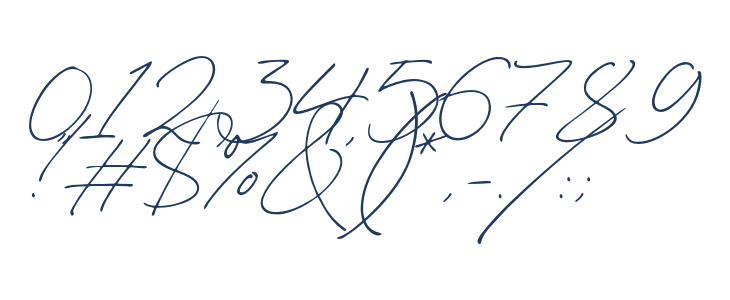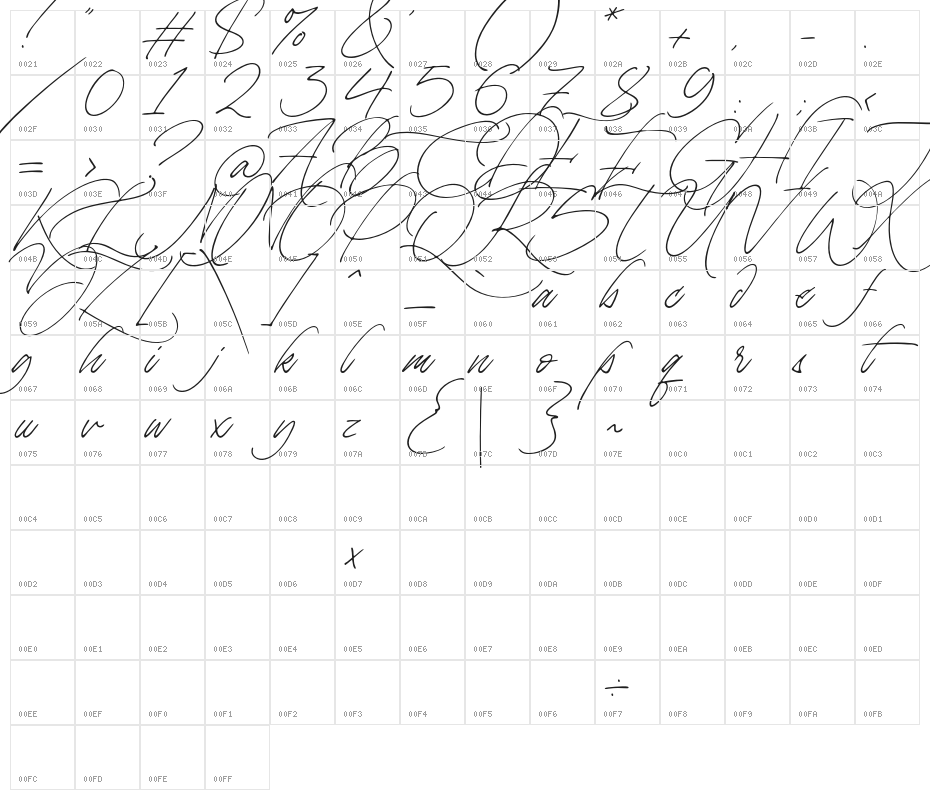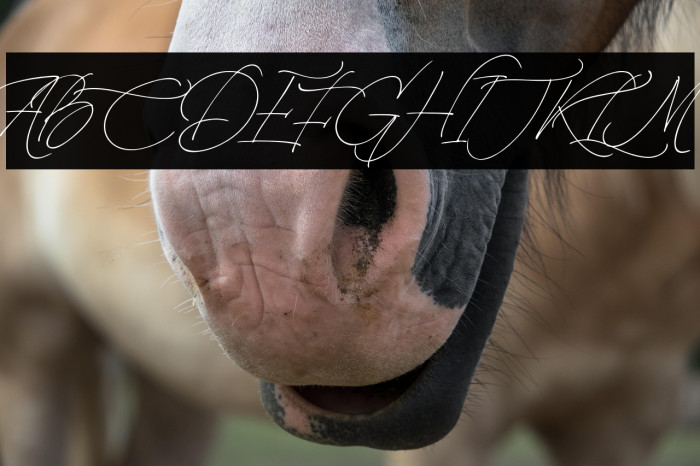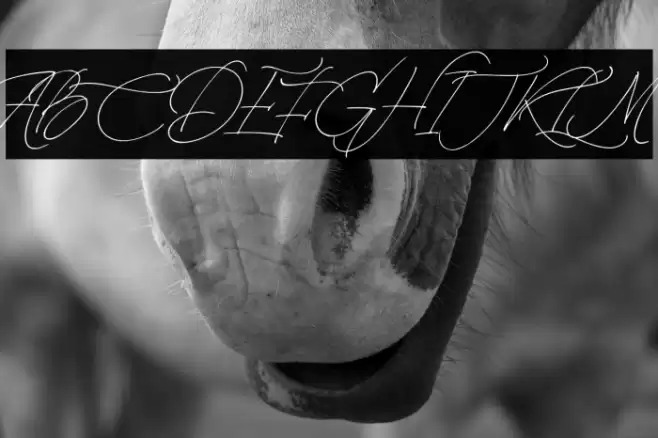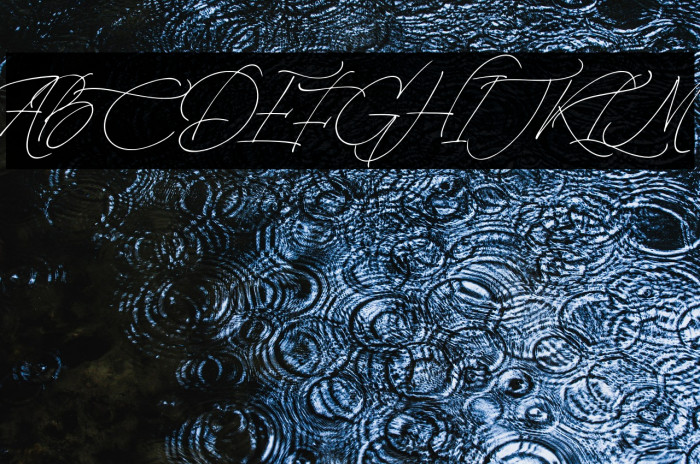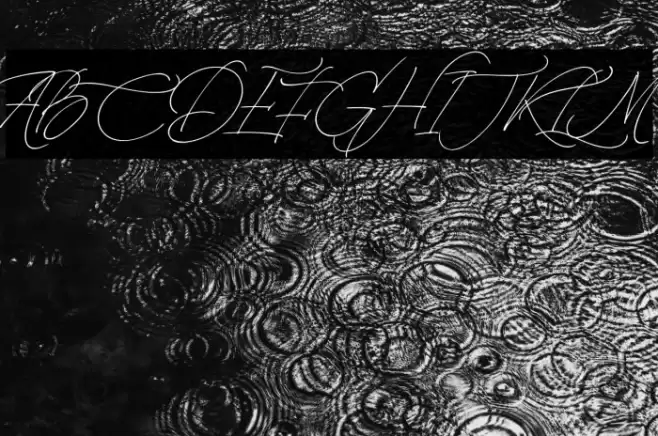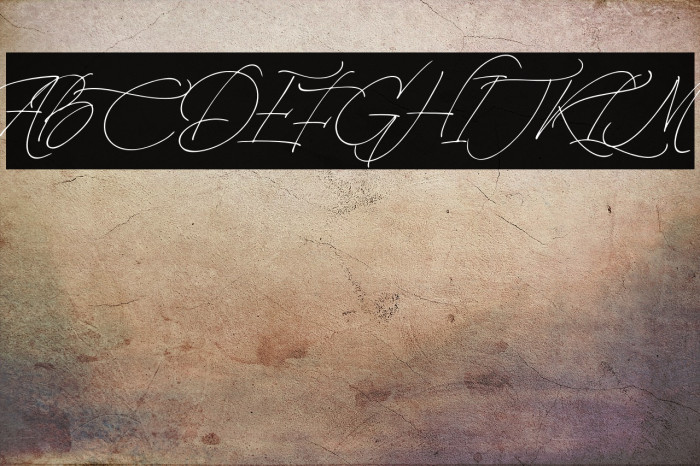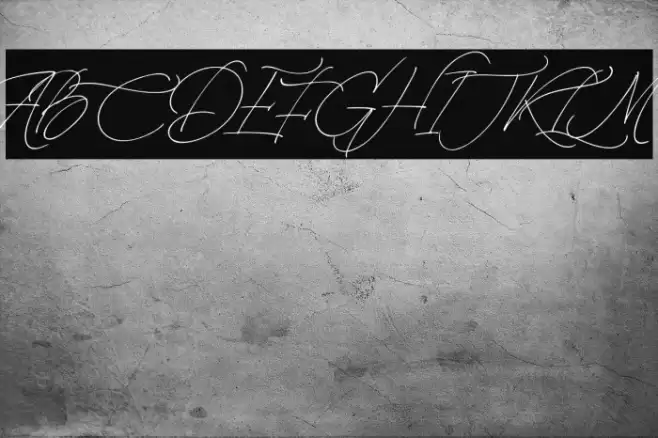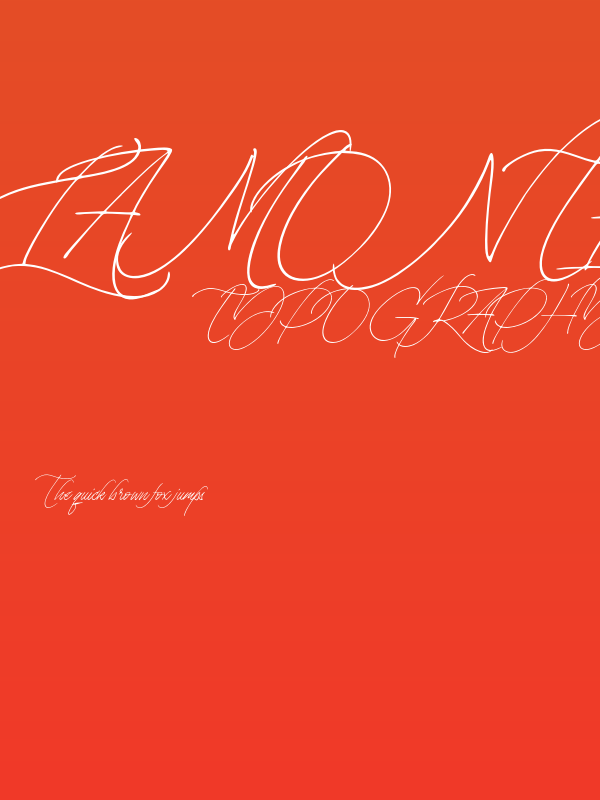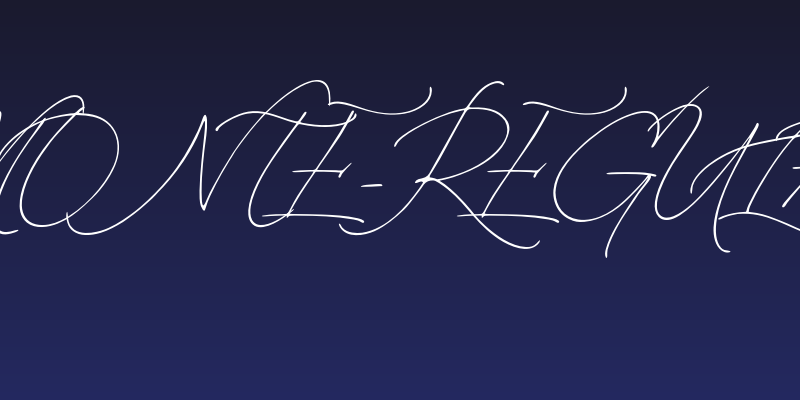
LaMonte-Regular Font
LaMonte-Regular Description
This font exhibits a flowing, cursive style that mimics elegant handwriting. The uppercase letters are gracefully elongated with sweeping curves, while the lowercase letters maintain a consistent fluidity, enhancing the script-like appearance. The numerals and special characters are crafted with the same attention to detail, ensuring a cohesive look across all characters. The font's thin strokes and delicate lines contribute to its sophisticated and refined aesthetic, making it suitable for formal and decorative applications. Its overall design exudes a sense of elegance and artistry, perfect for projects that require a touch of class and sophistication.
| Use Case | Headlines, Invitations, Branding |
| Proposed Projects | Ideal for wedding invitations, elegant branding, personal stationery, and decorative headings. |